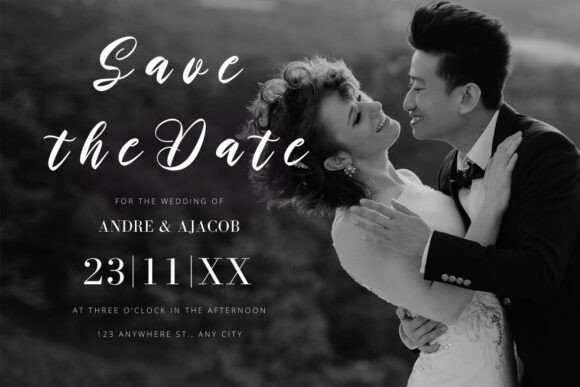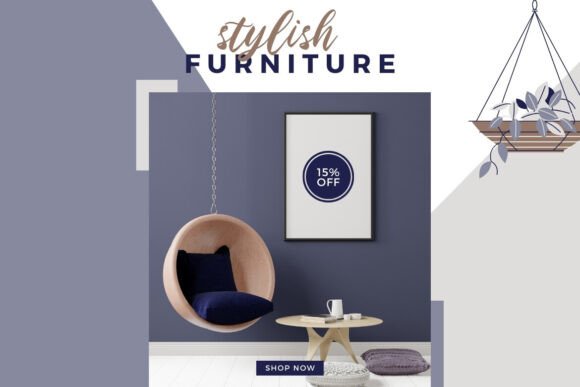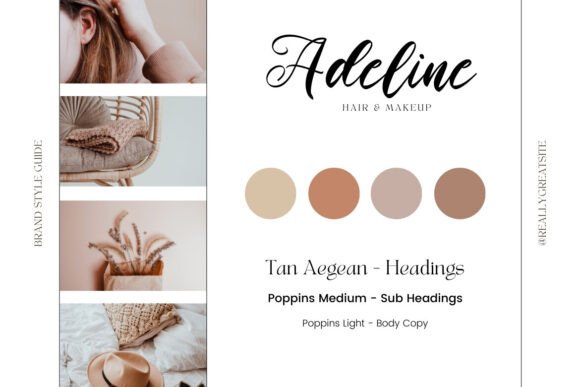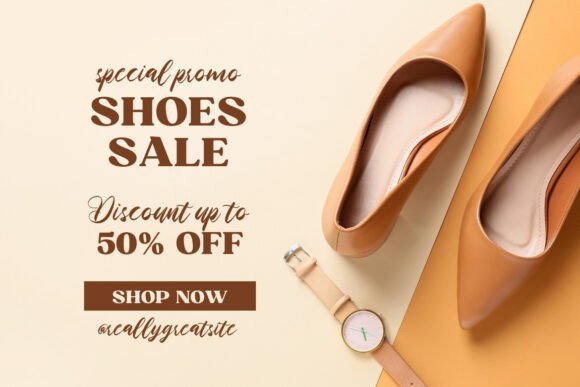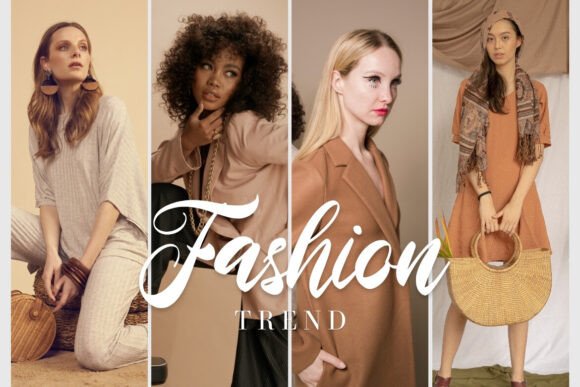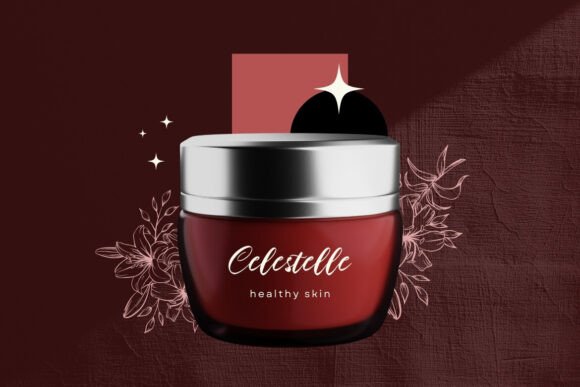
Introducing Caelora Font: Elevate Your Designs with Elegance and Sophistication
In the world of typography, a well-crafted font can make all the difference in transforming a design from ordinary to extraordinary. Caelora Handwritten is a beautifully designed script font that embodies the essence of elegance and natural flow, making it an ideal choice for designers and crafters looking to add a personal and sophisticated touch to their projects.
The Beauty of Caelora Handwritten
Caelora Handwritten is a stunning script font that boasts smooth, flowing strokes and delicate curves, giving it a unique and artistic charm. The font’s natural flow and effortless style make it perfect for a wide range of design applications, from branding and invitations to logos and creative projects. Whether you’re looking to create a luxurious brand identity or a heartfelt invitation, Caelora Handwritten is sure to impress.
Key Features of Caelora Font
- Elegant and Sophisticated: Caelora Handwritten exudes warmth, authenticity, and artistic charm, making every word feel effortlessly stylish.
- Smooth and Flowing Strokes: The font’s smooth, flowing strokes and delicate curves give it a natural and organic feel.
- Perfect for Branding: Caelora Handwritten is ideal for creating a luxurious brand identity that stands out from the crowd.
- Versatile: The font is suitable for a wide range of design applications, including invitations, logos, and creative projects.
- Easy to Read: Despite its elegant and cursive nature, Caelora Handwritten is easy to read, making it perfect for body text and headlines.
Uses of Caelora Font
Caelora Handwritten is a versatile font that can be used in a variety of design applications, including:
- Branding: Create a luxurious brand identity with Caelora Handwritten, perfect for high-end brands and businesses.
- Invitations: Add a personal and sophisticated touch to your invitations, whether it’s a wedding invitation or a birthday party invite.
- Logos: Use Caelora Handwritten to create a unique and memorable logo that stands out from the crowd.
- Creative Projects: Add a touch of elegance and sophistication to your creative projects, such as brochures, flyers, and posters.
Tips for Using Caelora Font
To get the most out of Caelora Handwritten, here are some tips to keep in mind:
- Use it as a Headline Font: Caelora Handwritten is perfect for headlines and titles, where its elegant and sophisticated style can shine.
- Pair it with a Sans-Serif Font: Pair Caelora Handwritten with a sans-serif font for body text to create a beautiful contrast.
- Keep it Simple: Don’t over-accessorize your design – let the beauty of Caelora Handwritten shine through.
In conclusion, Caelora Handwritten is a beautifully crafted script font that embodies elegance and natural flow. With its smooth, flowing strokes and delicate curves, this font adds a personal and sophisticated touch to any design. Perfect for branding, invitations, logos, and creative projects, Caelora Handwritten exudes warmth, authenticity, and artistic charm, making every word feel effortlessly stylish. Whether you’re a designer or a crafter, Caelora Handwritten is sure to become a favorite in your font collection.